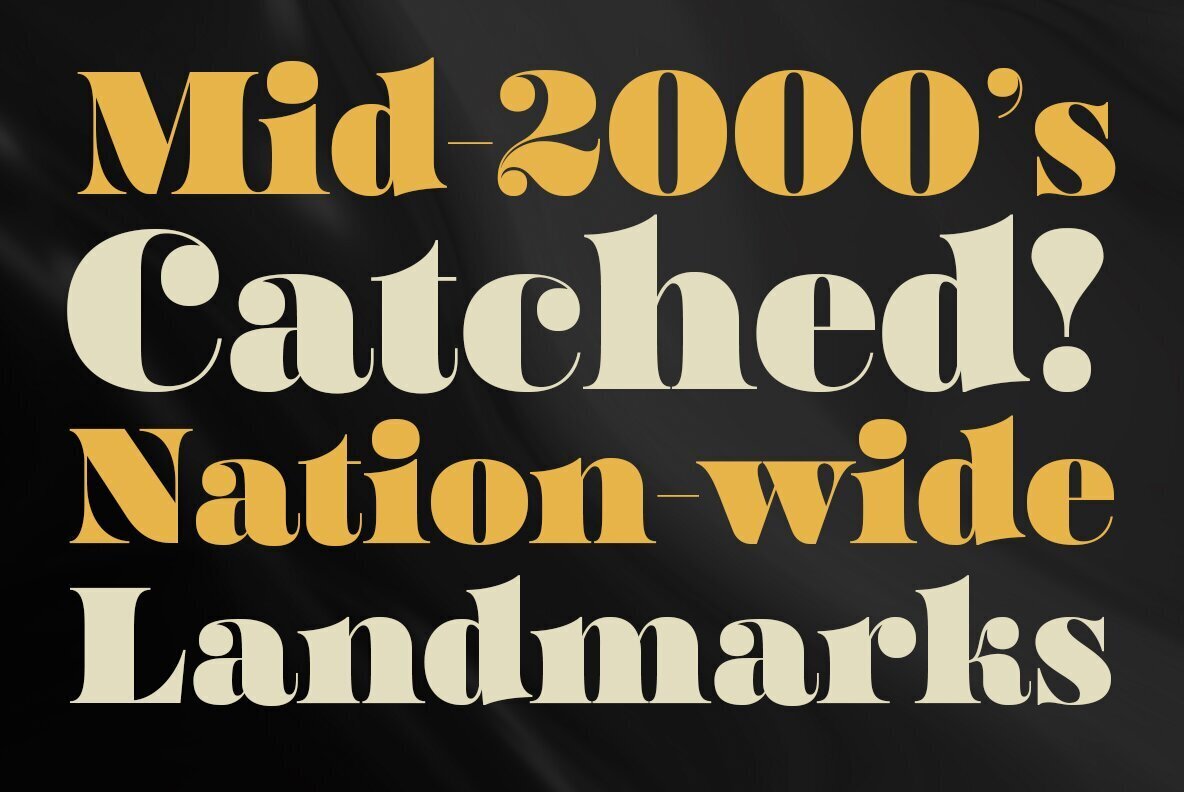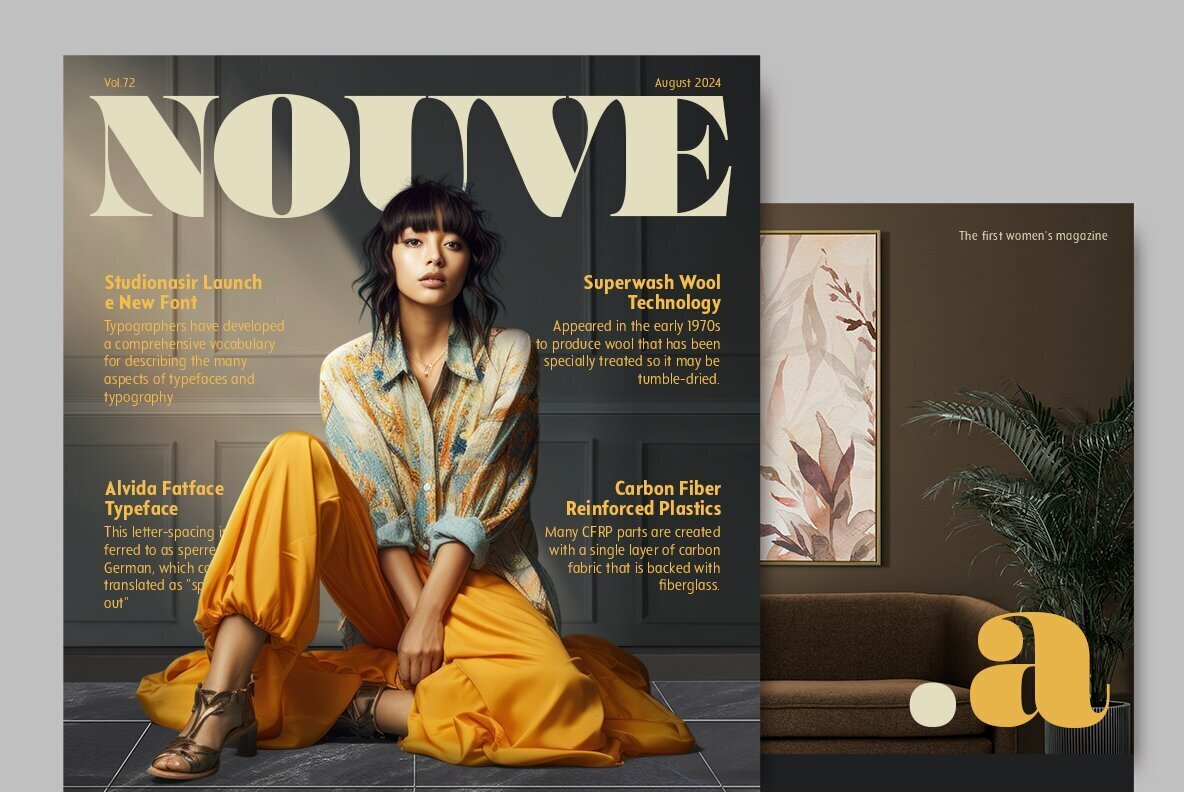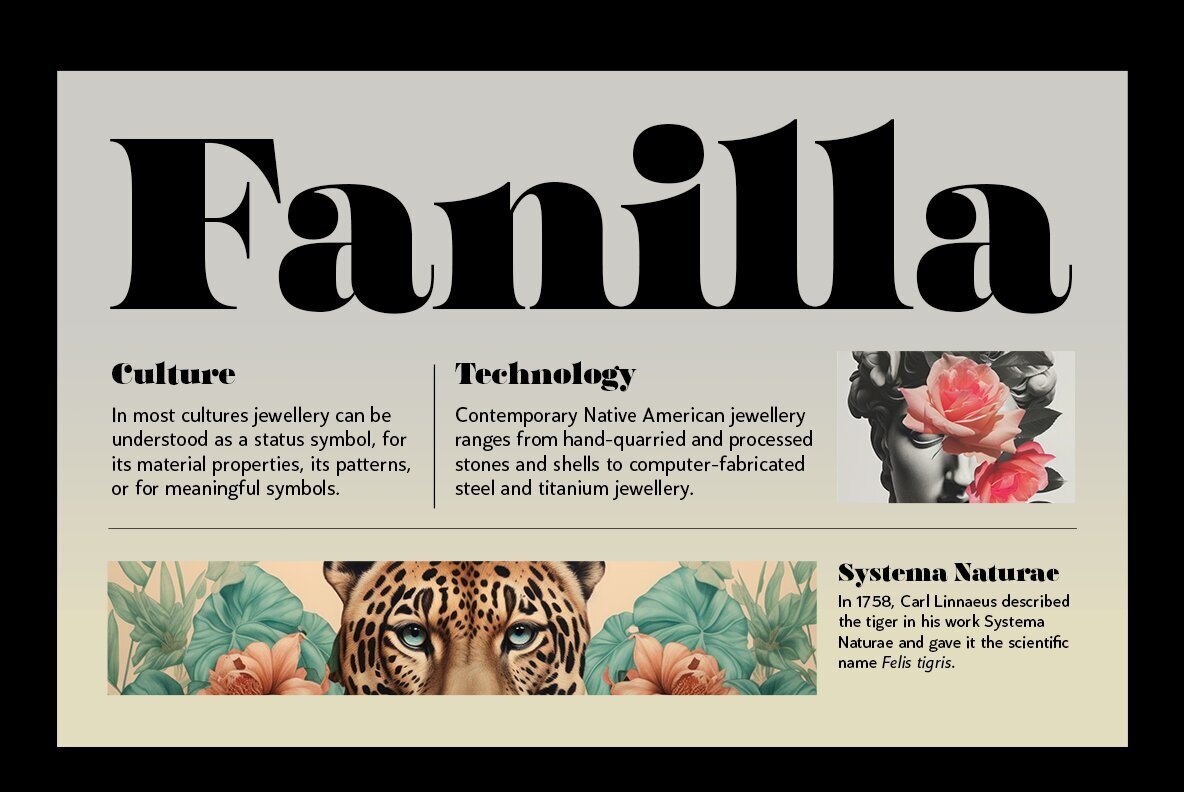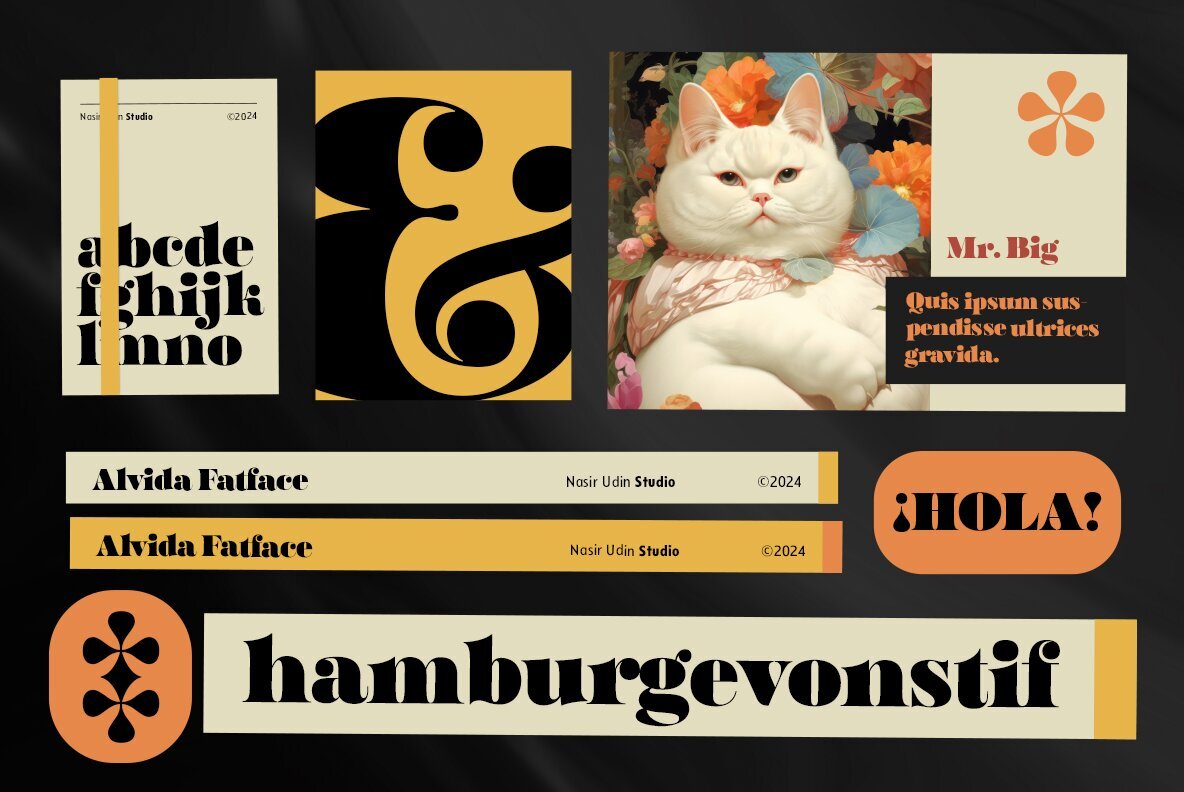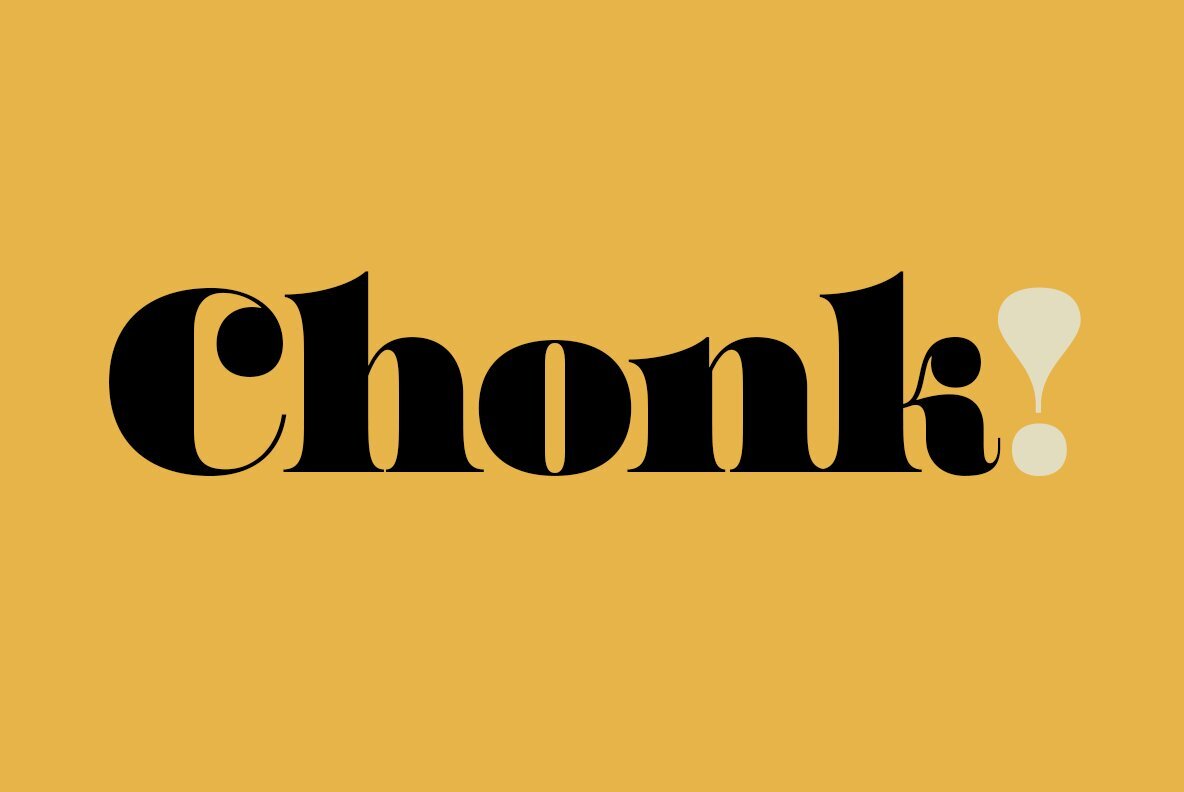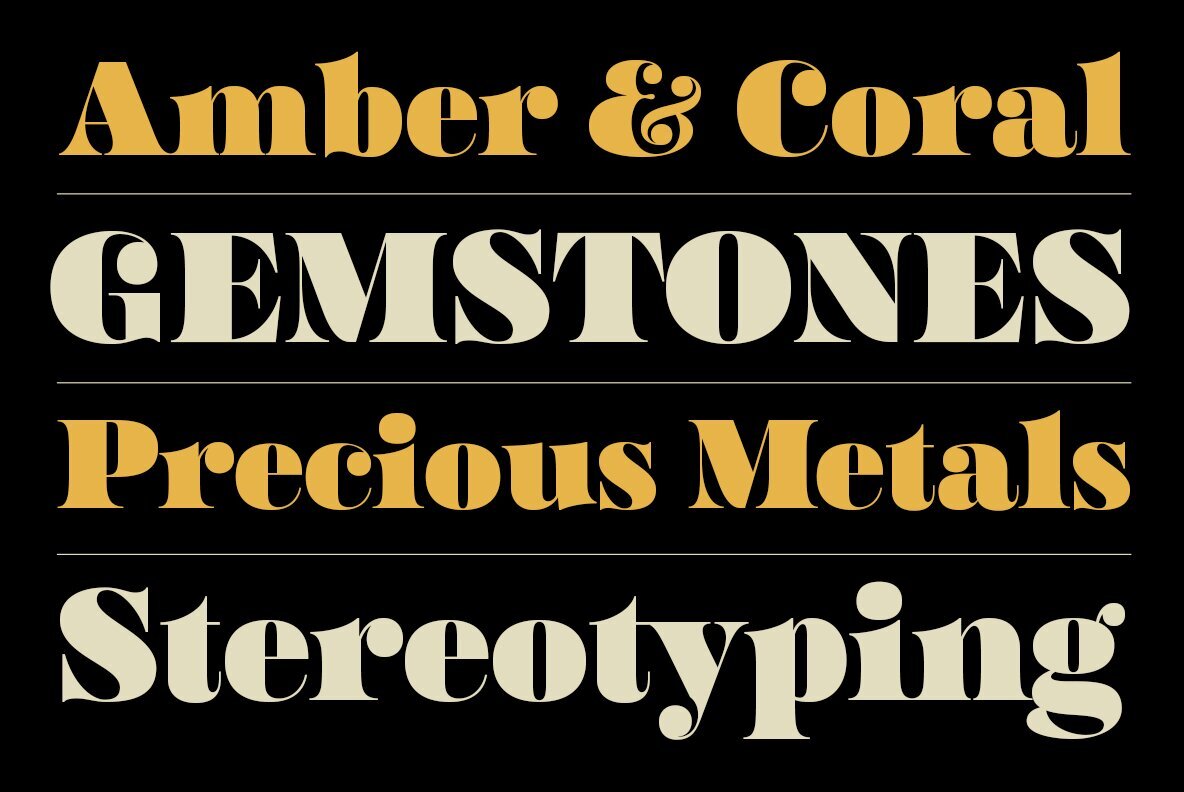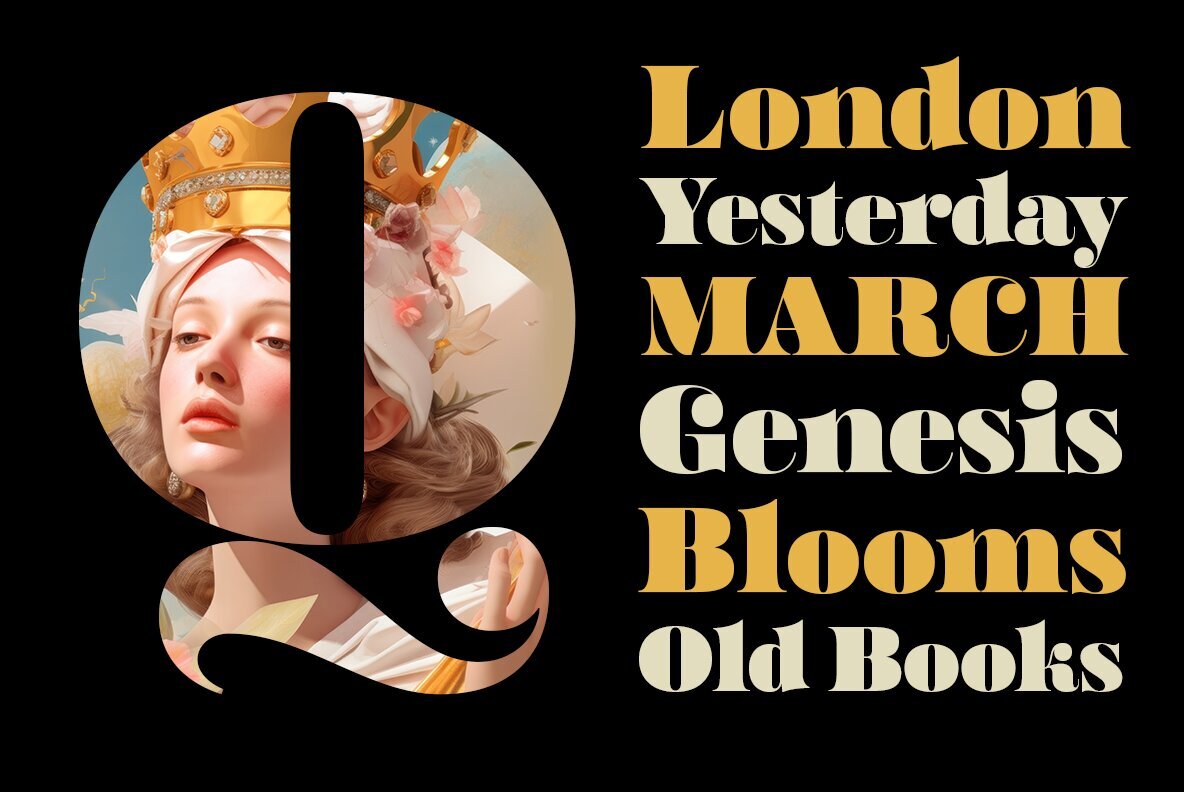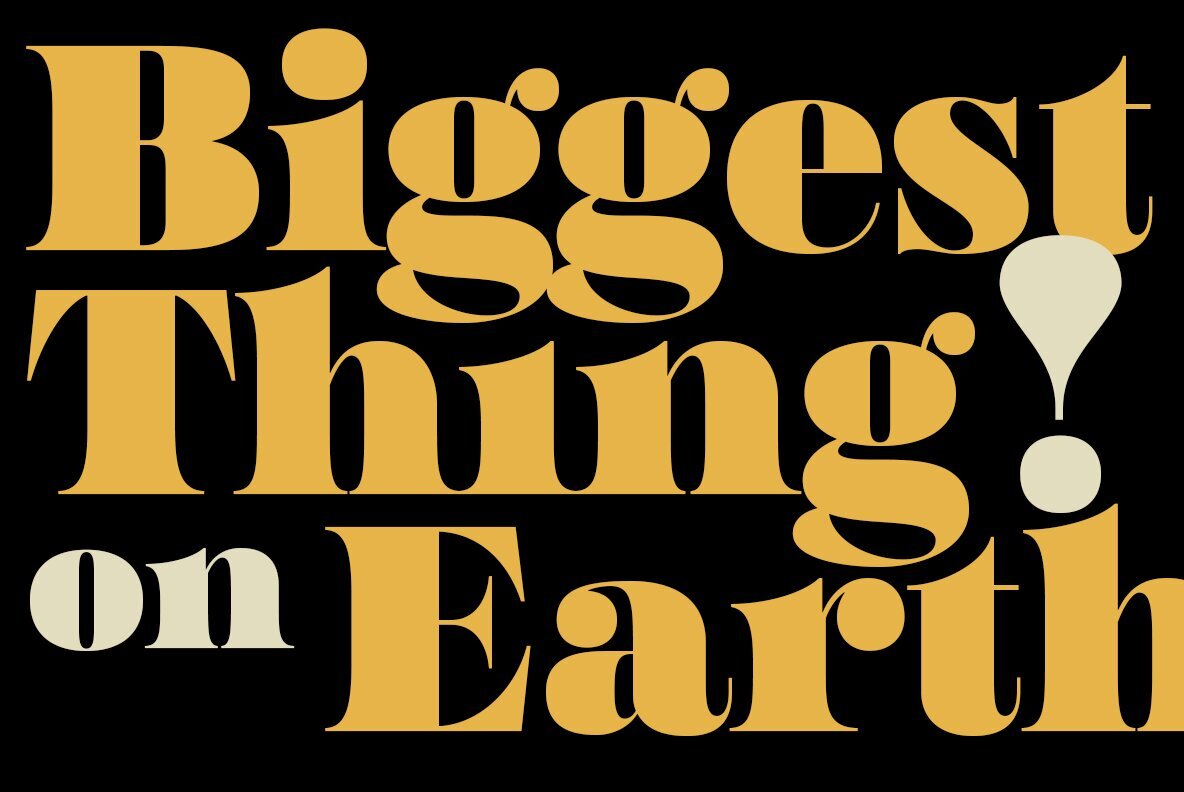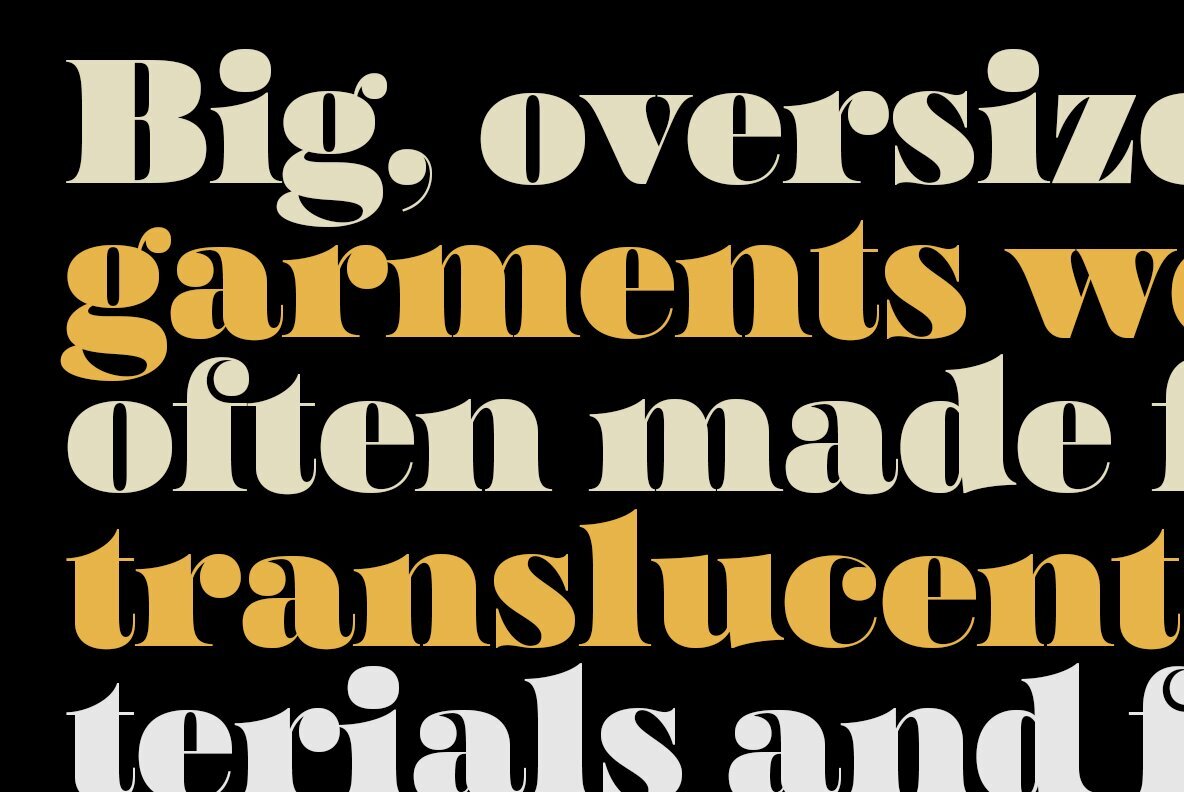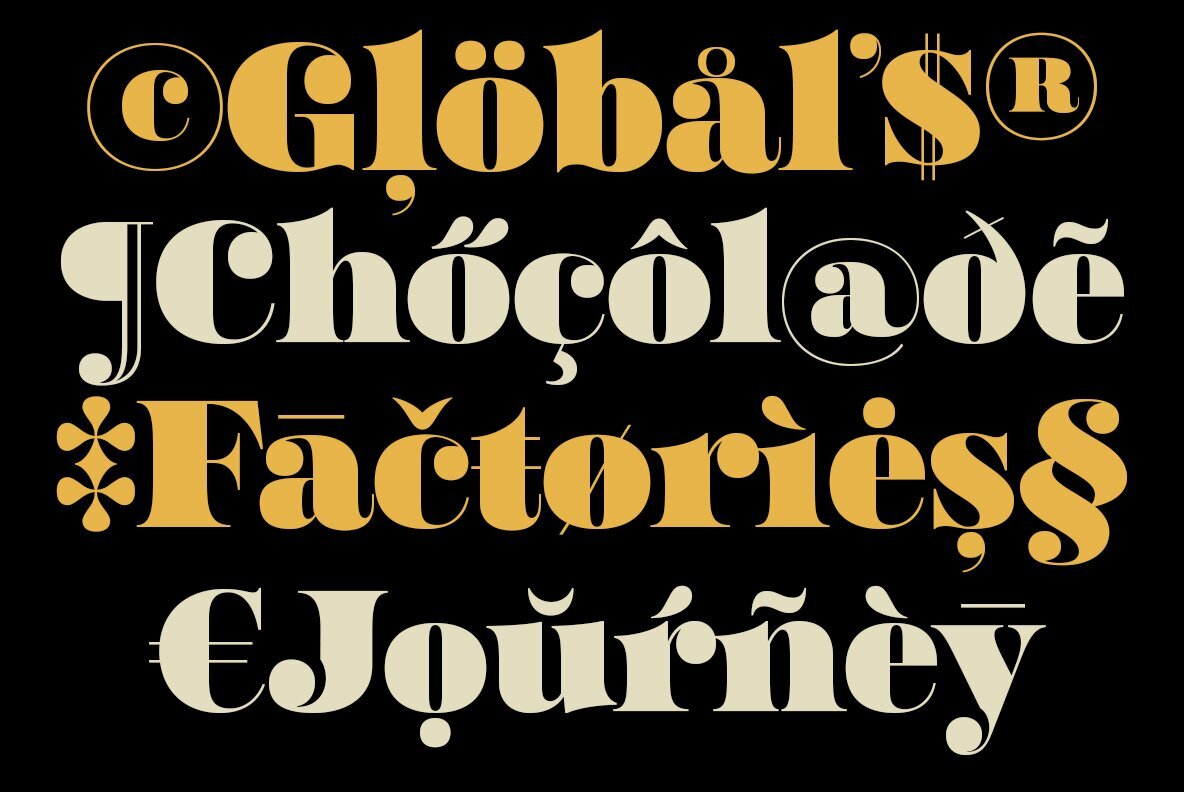
Alvida Fatface Font
Alvida Fatface Regular
Alvida Fatface was inspired by fat face style fonts that were popular in the 19th century. Using high contrast between extremely bold and thin stroke makes Alvida an attention-catching display font. Alvida consist of one-style font supported for multilingual language.